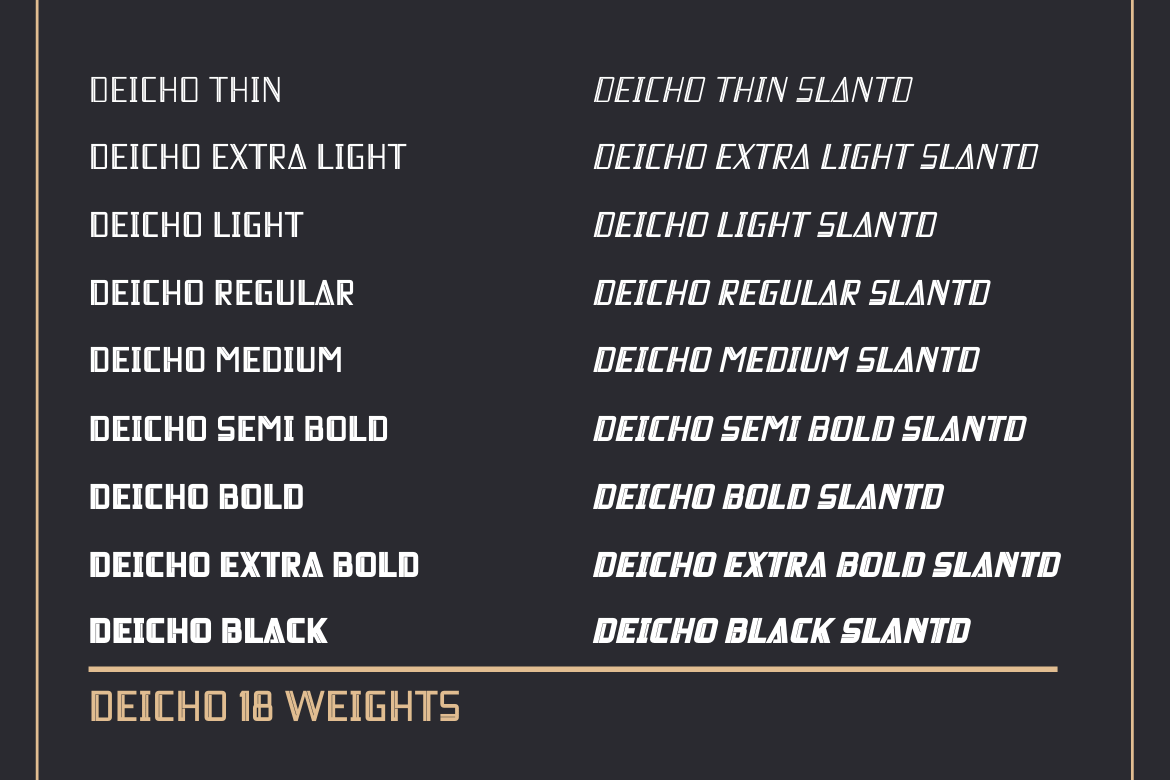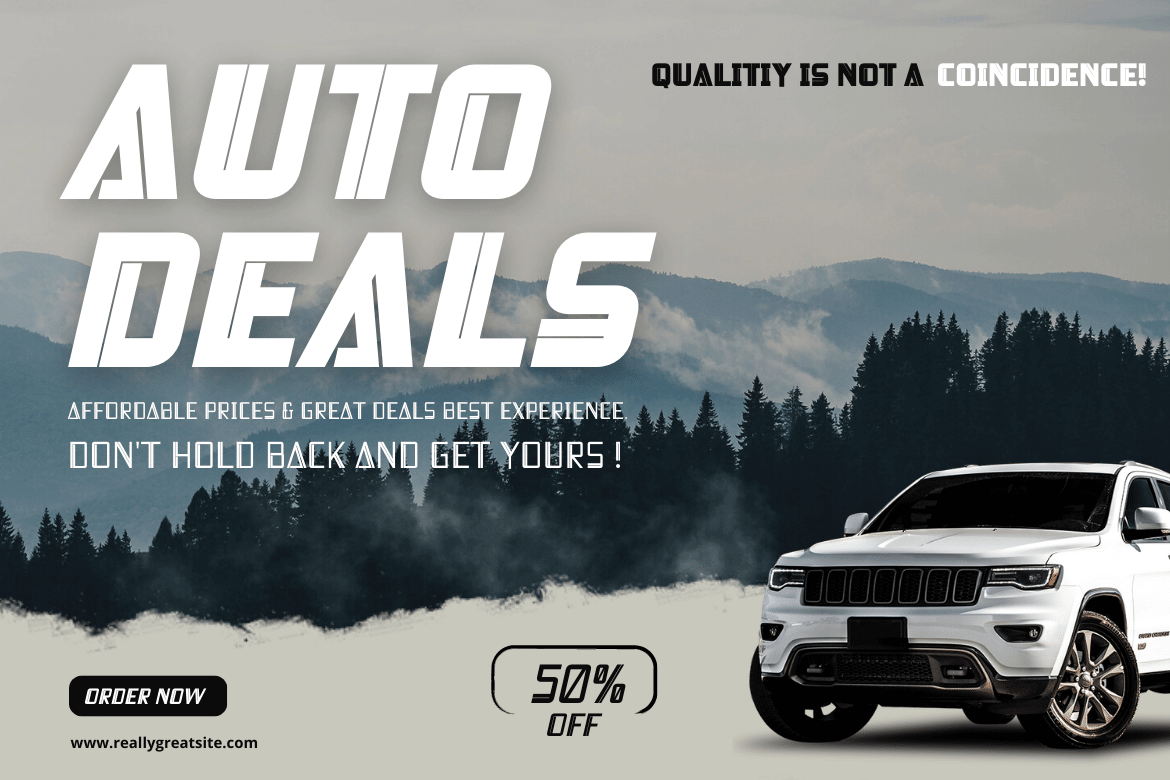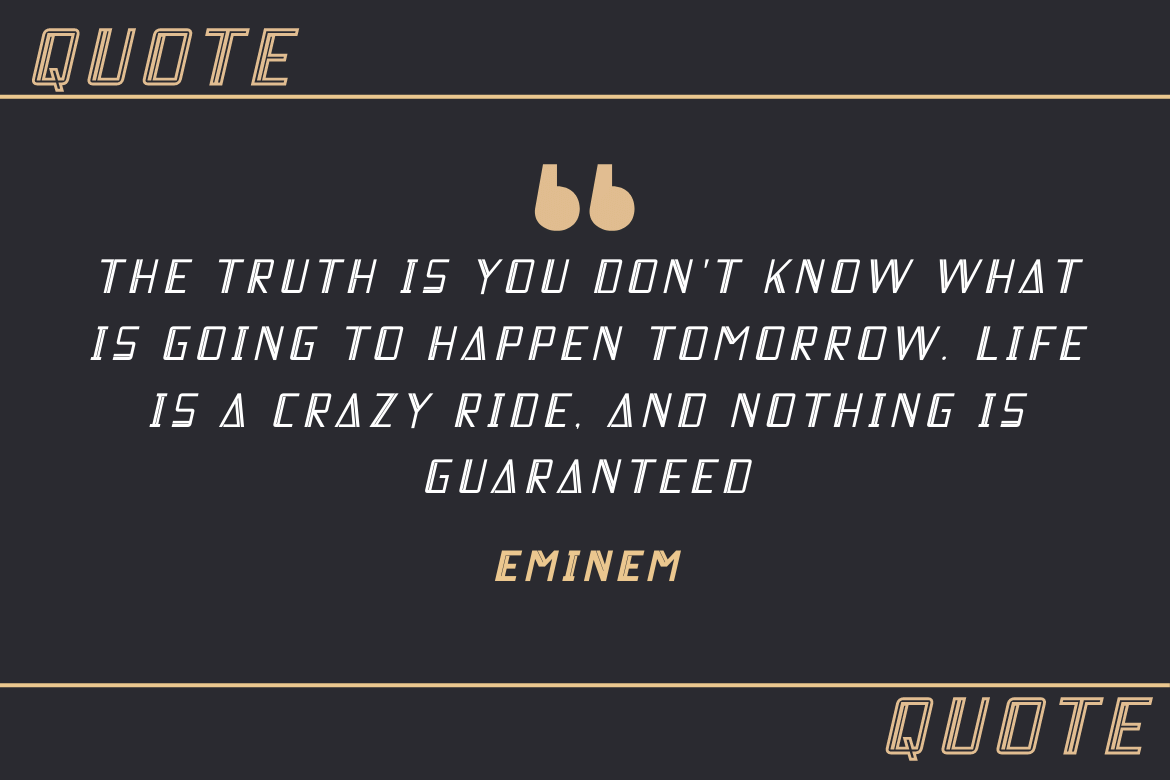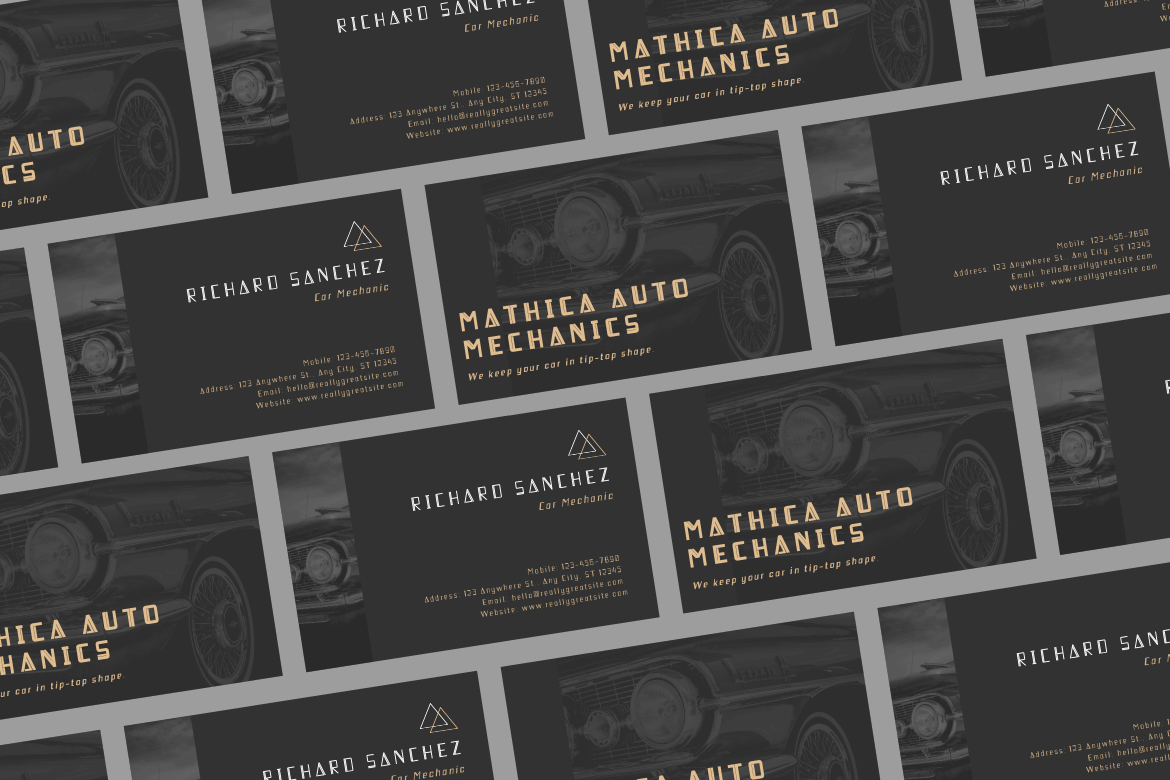
DEICHO Display Font
This is a premium font family that comes in 18 different styles. Designed to assist you in creating visually stunning projects of any kind. Its one-of-a-kind shape will make your project stand out to your audience.
of course, your various design projects will be perfect and extraordinary if you use this font because this font is equipped with a font family, both for titles and subtitles and sentence text, start using our fonts for your extraordinary projects.